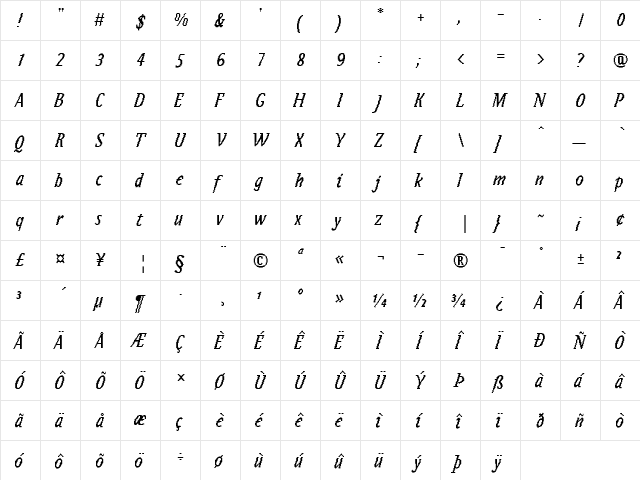
Zeitgeist MT Italic
Design Context for Zeitgeist MT Typeface
Zeitgeist MT takes a measured approach to typography — its balanced proportions and neutral character make it a reliable workhorse for both digital and print work. Its italic angle brings a sense of urgency and motion to the letterforms.
Pro Tip: Try Zeitgeist MT for annotation and caption copy alongside an upright companion — the contrast in angle creates a dynamic but ordered typographic system.